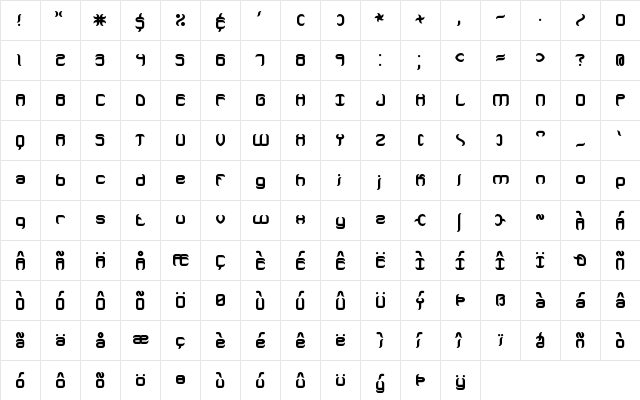
Jeopardize Thick BRK Normal
Design Context for Jeopardize Thick BRK Typeface
Jeopardize Thick BRK is a composed and adaptable typeface that performs quietly and consistently across a wide range of design contexts.
Pro Tip: Use Jeopardize Thick BRK in both headline and body roles to test its range before committing to a single application.